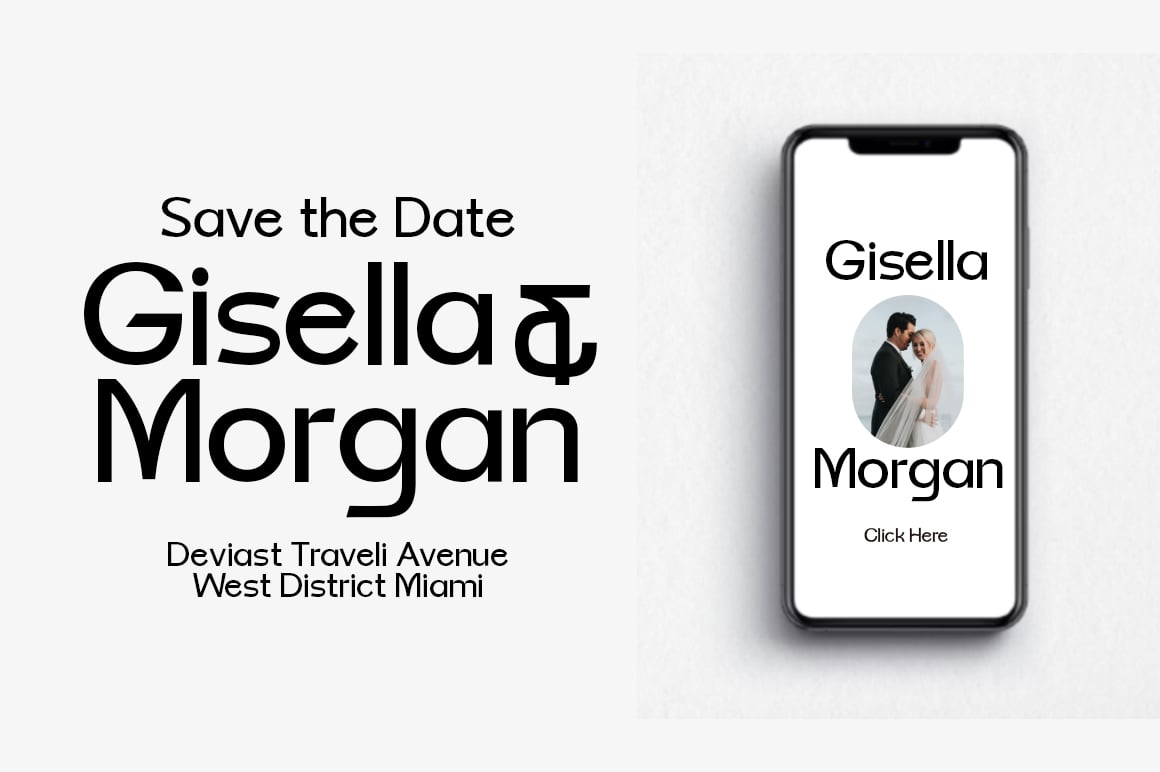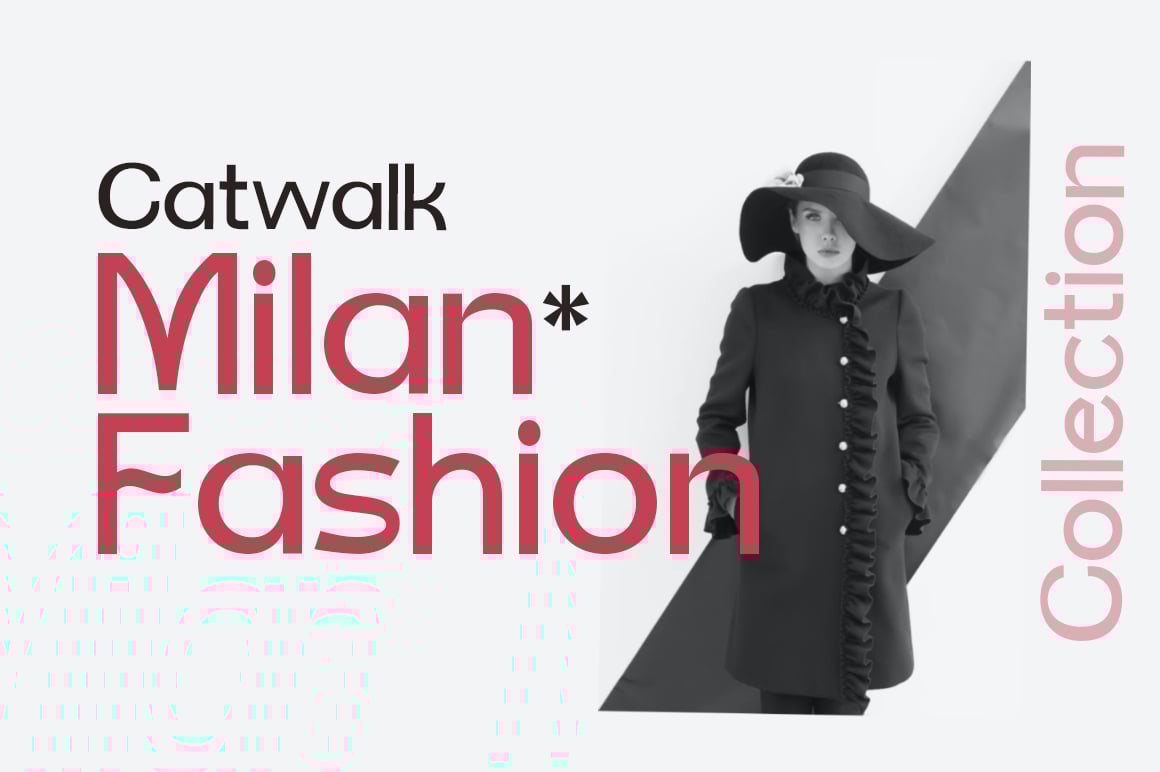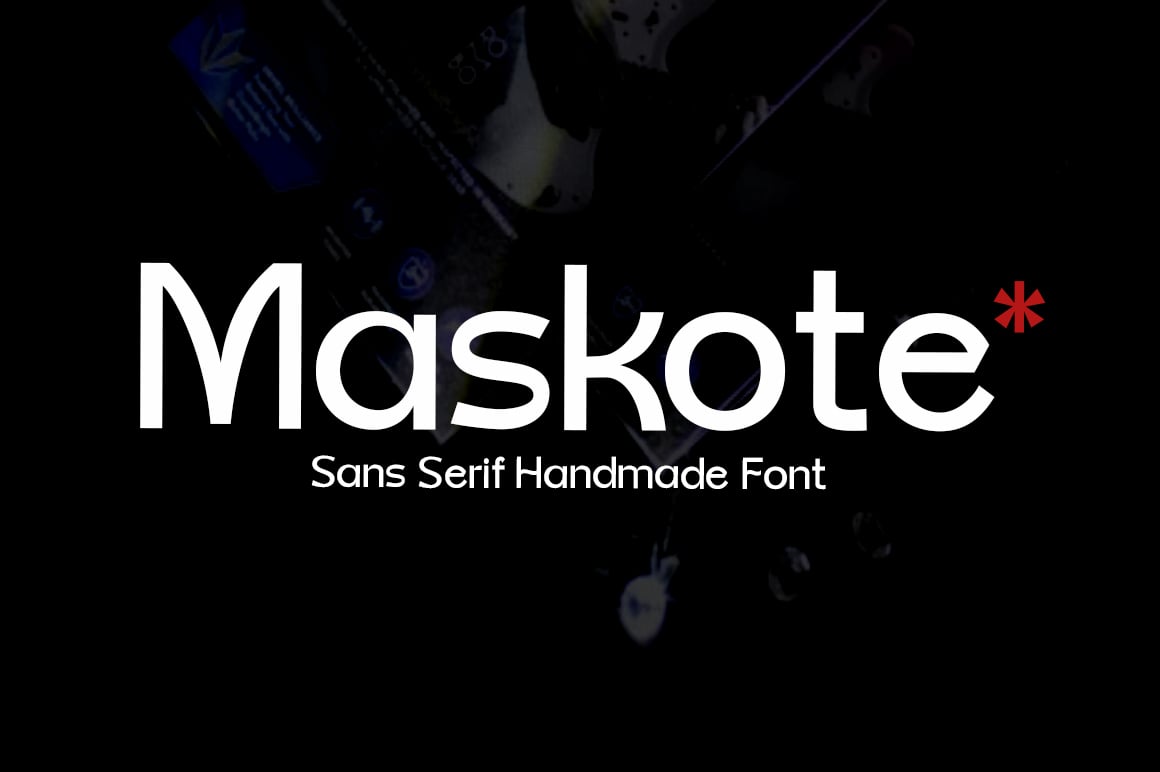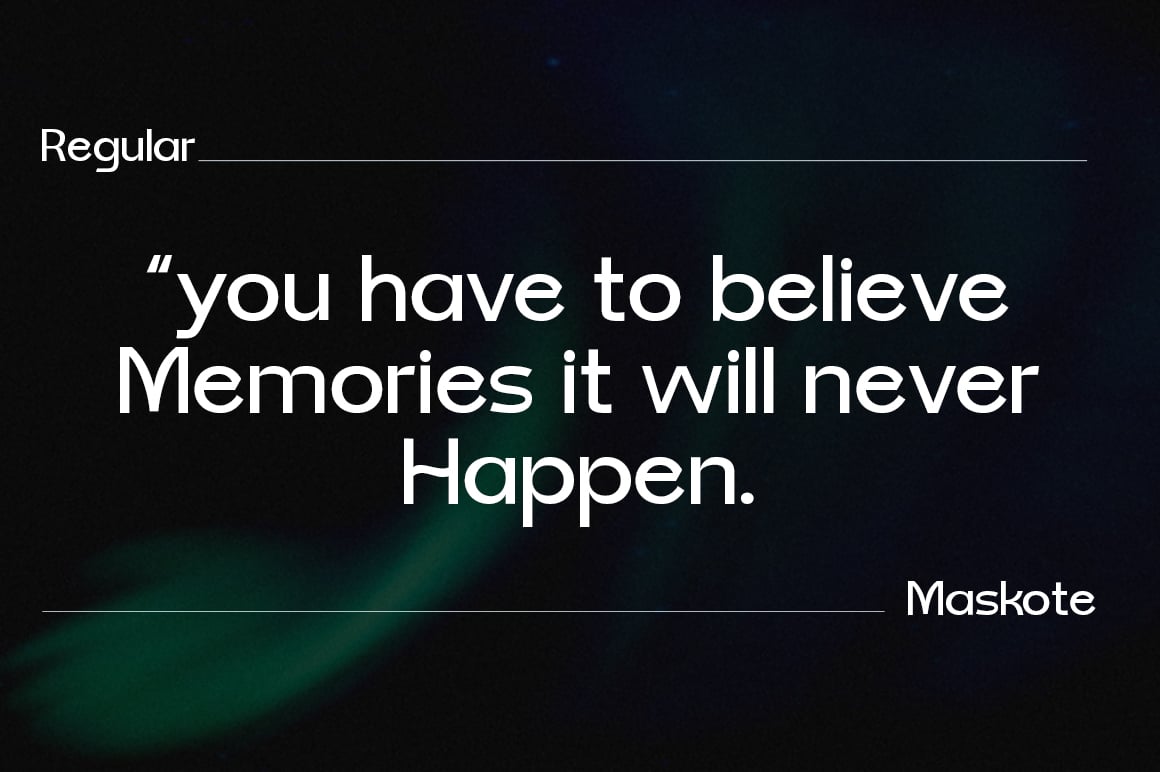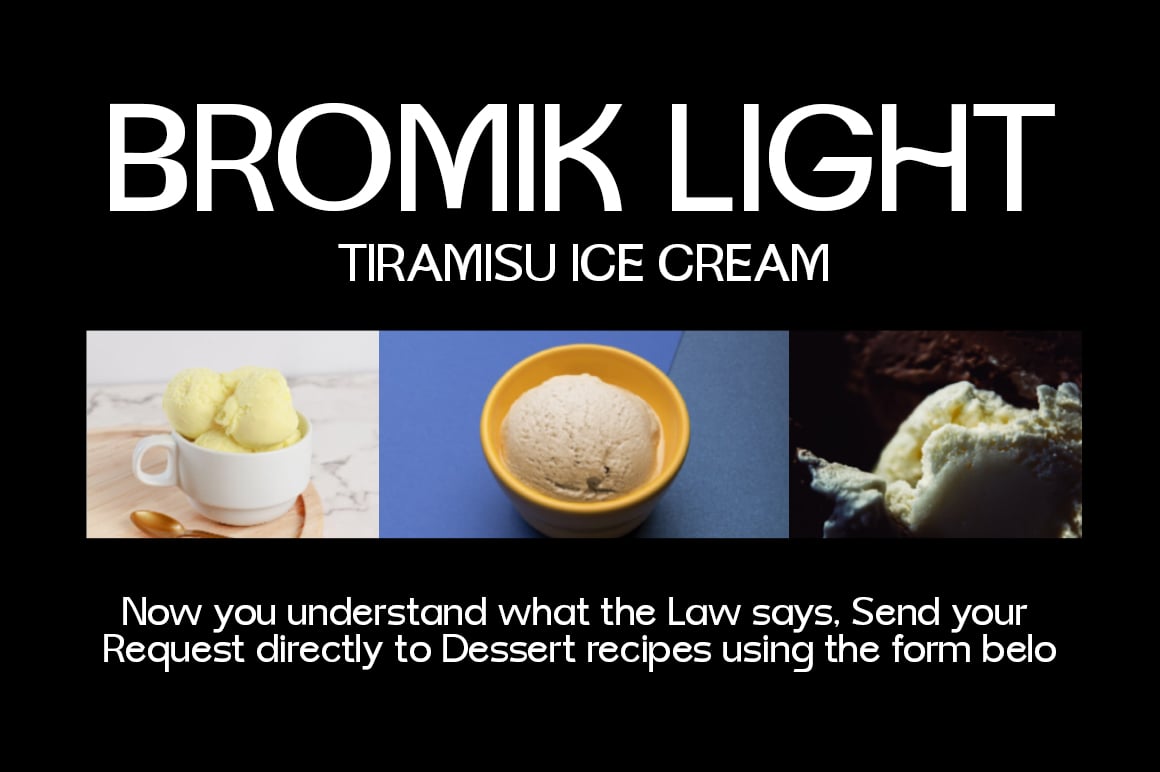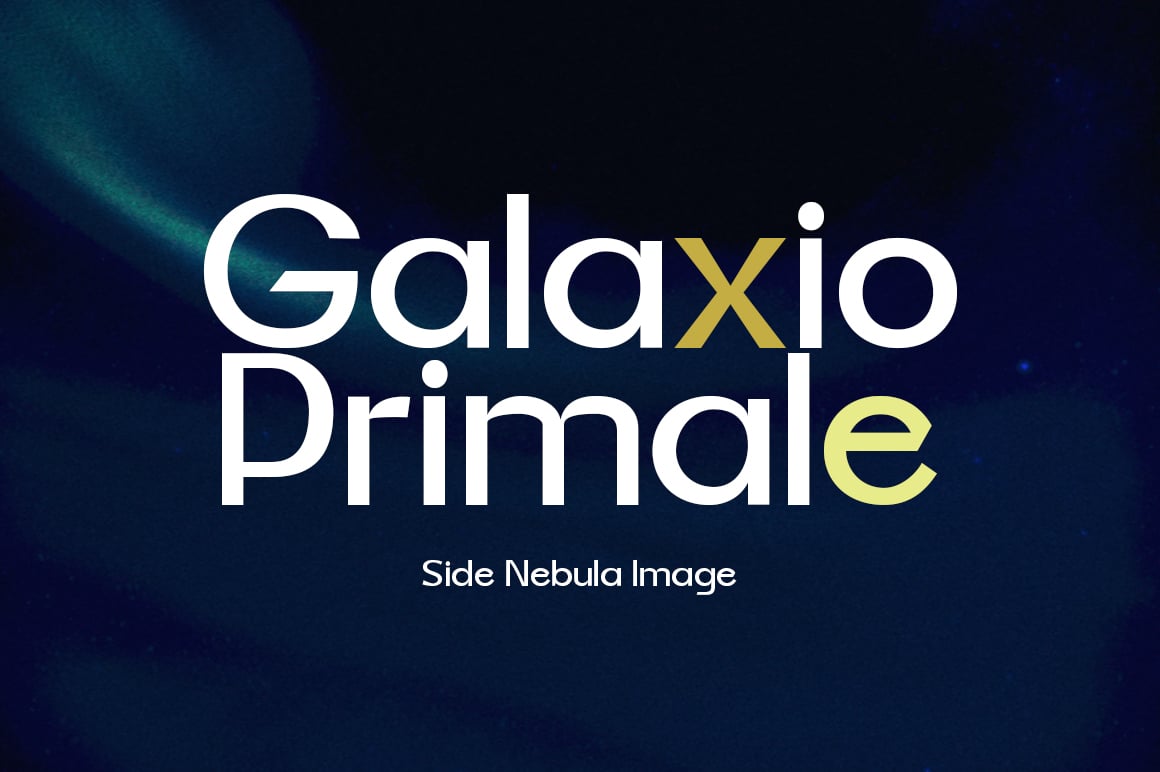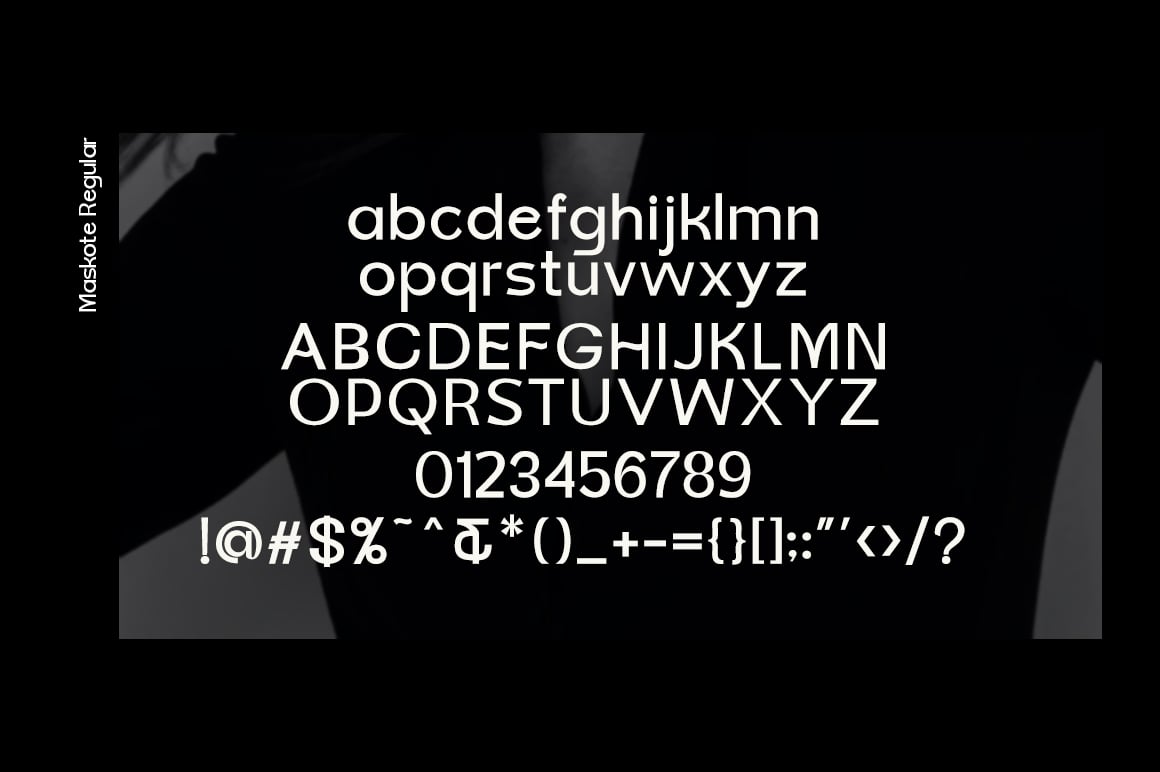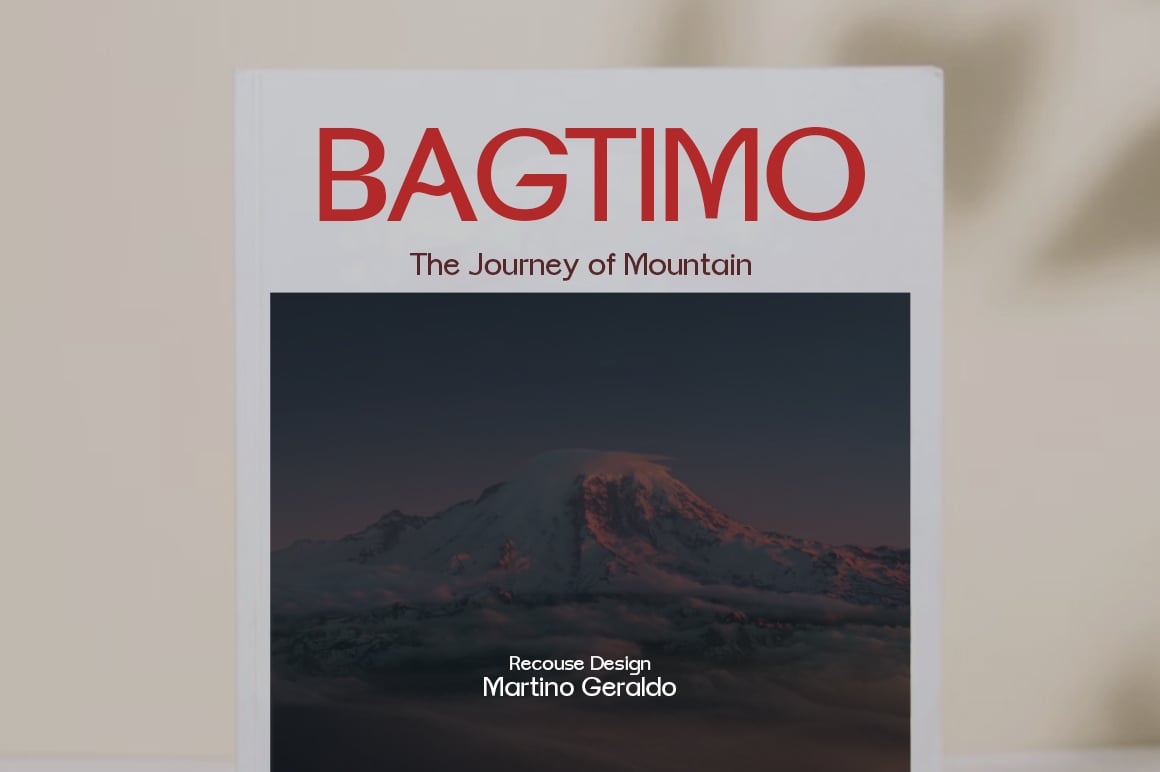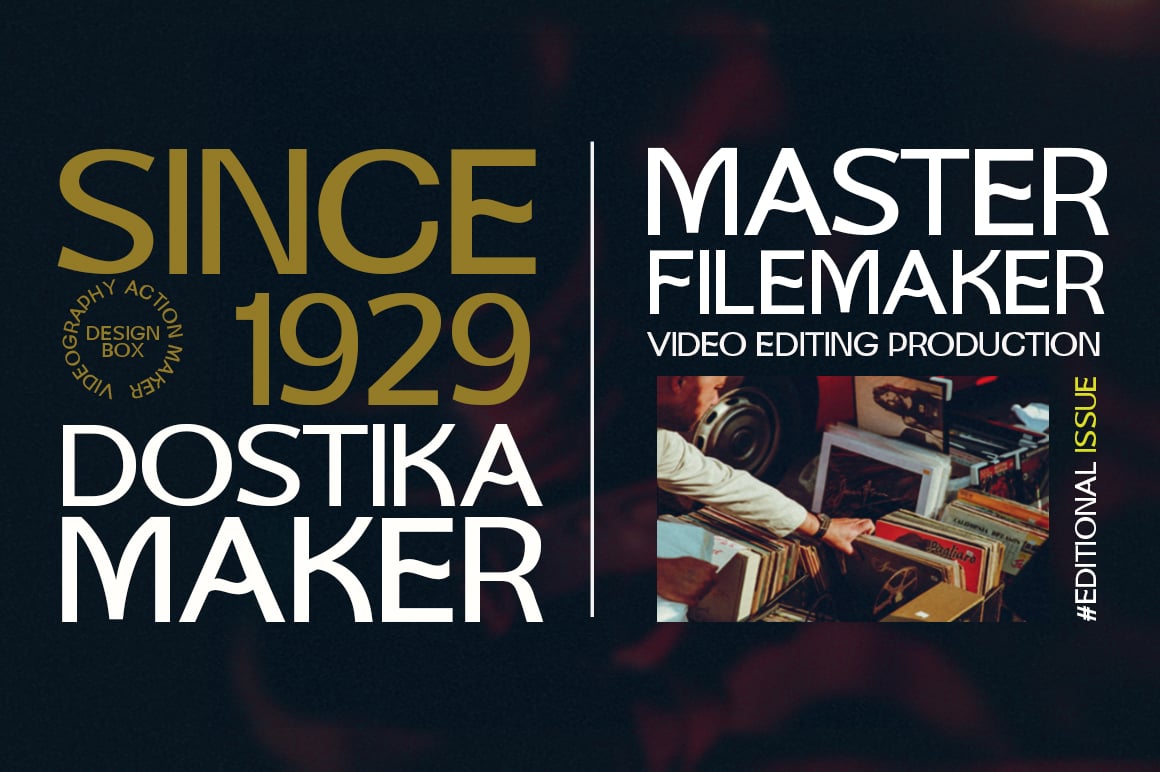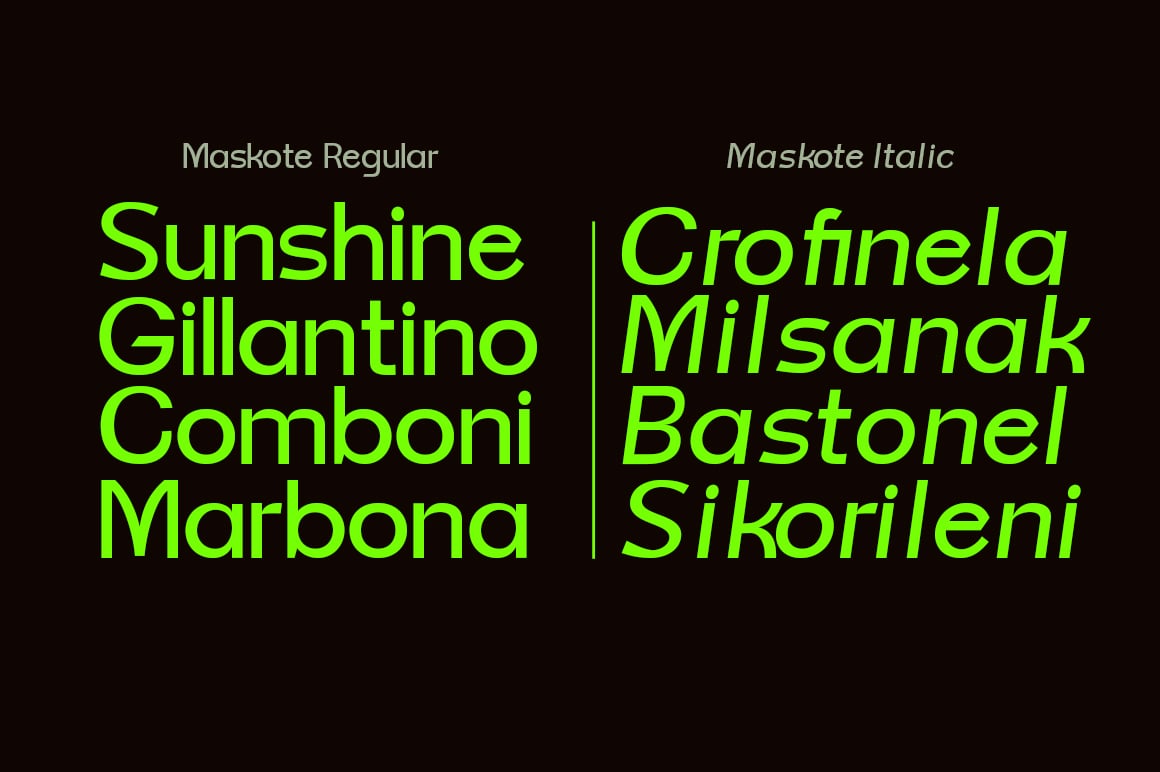
Maskote Font
Maskote Sans serif with creative atmosphere and perfect shape, inspired by today's classy Sans serif Regular and Italic, with balanced and varied style thickness, born for luxury and beauty.
In my example, I show how this Mascot can be used. Perfect for logotype, branding, wedding invitation, romantic card, retro label, packaging, name spelling, and more.
Maskote comes with beautiful uppercase and lowercase letters, numbers, and punctuation. In addition to the main character set,
there are many alternative characters, initial and final strokes.